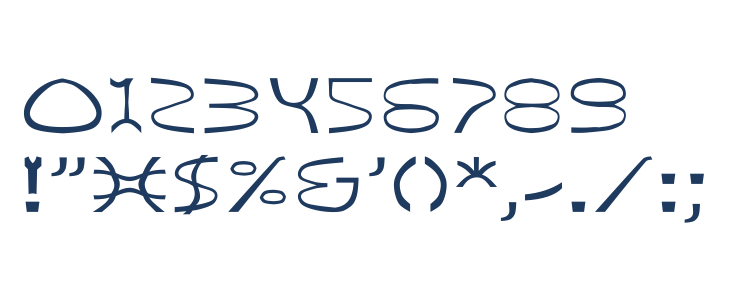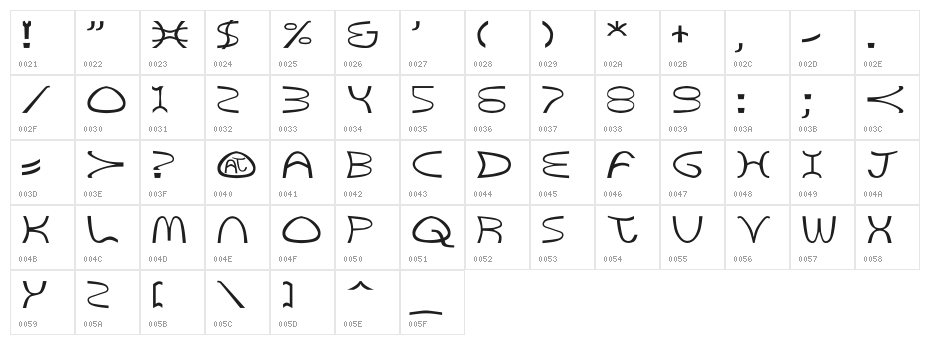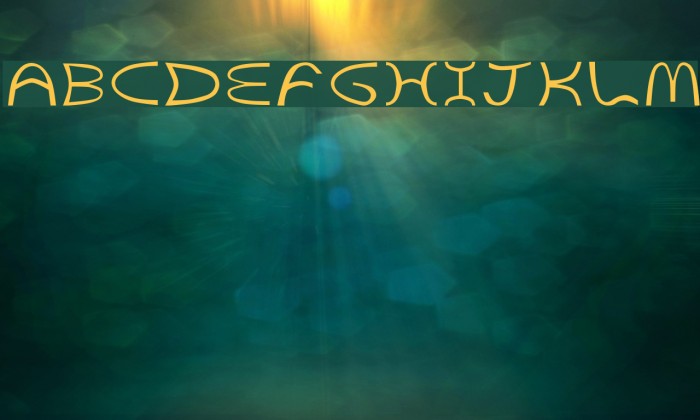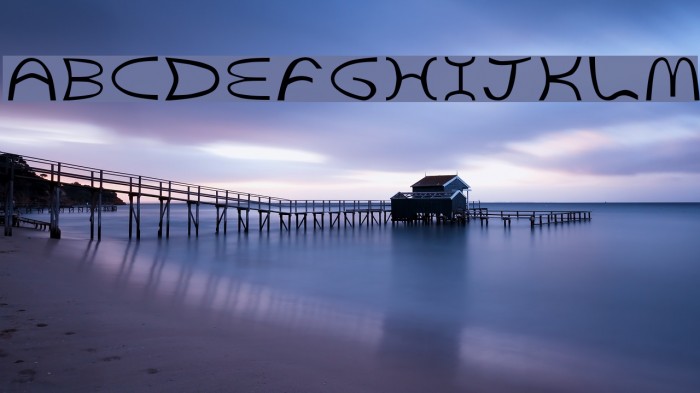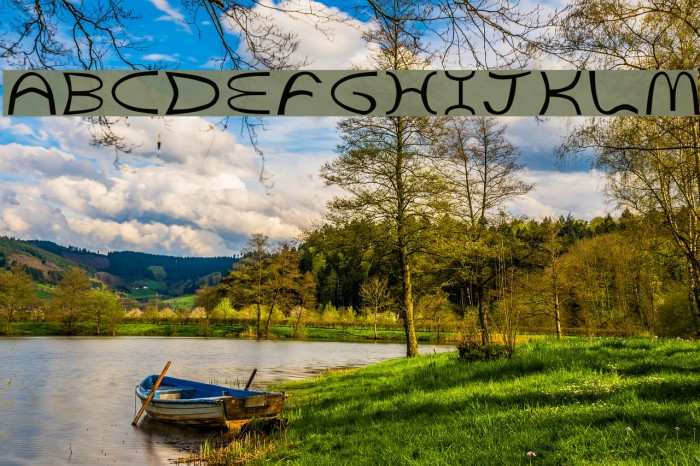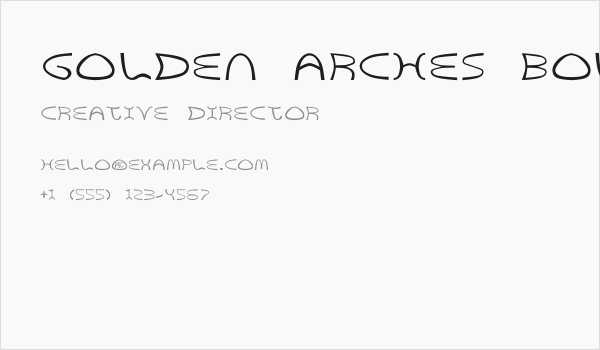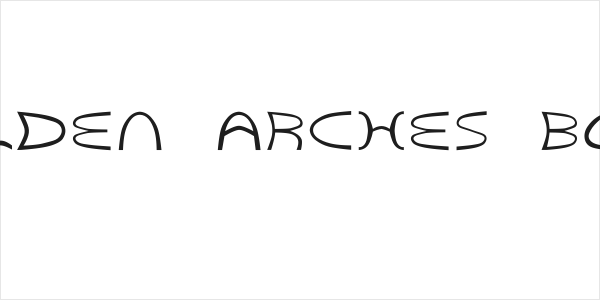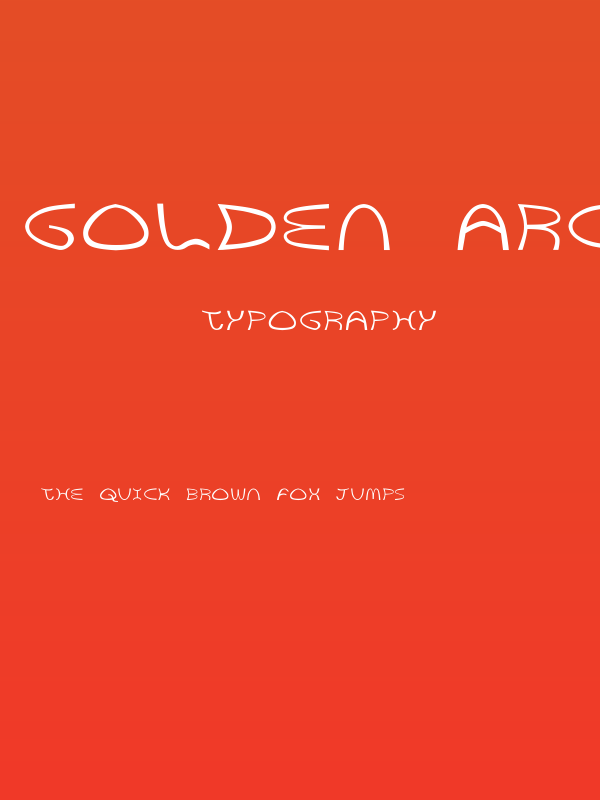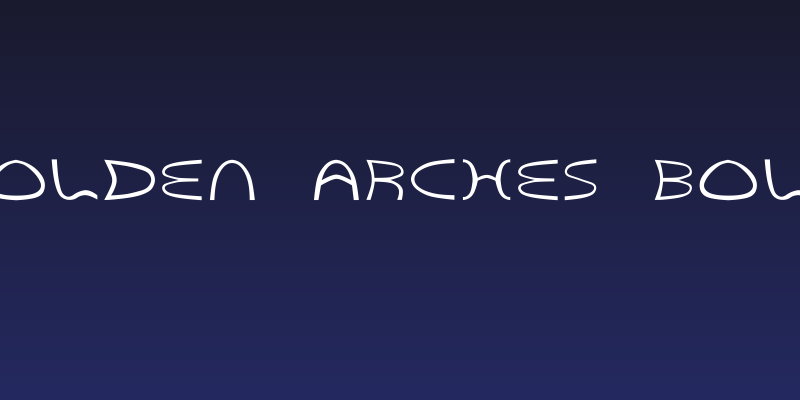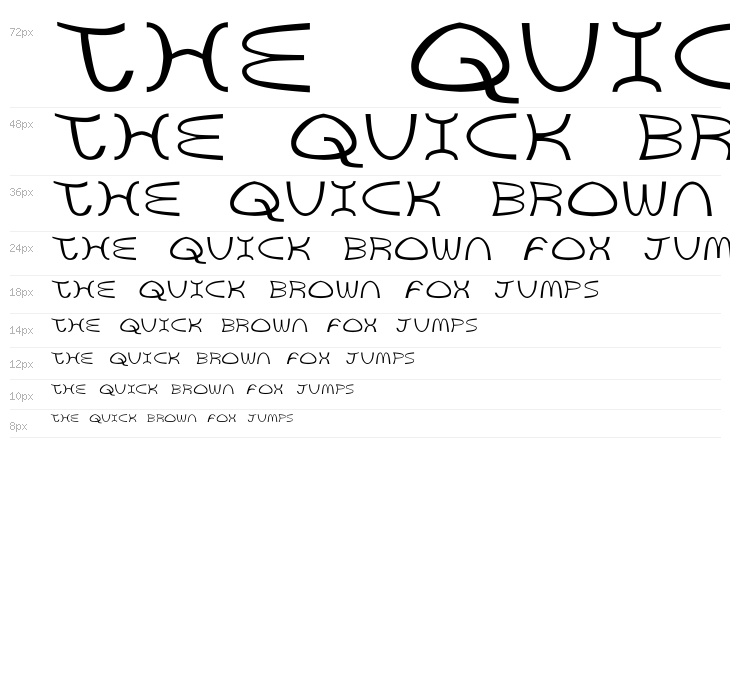
Golden Arches Bold Font
Golden Arches Bold Description
This font features a unique and playful design with a bold and rounded appearance. The characters have a whimsical, almost cartoon-like quality, with exaggerated curves and a sense of movement. The uppercase letters are particularly distinctive, with some characters having elongated strokes and others featuring unexpected angles. The lowercase letters maintain the same playful style, ensuring consistency across the typeface. Numbers and special characters are designed to match the overall aesthetic, making this font suitable for creative and informal projects. The bold weight of the font adds to its eye-catching nature, making it ideal for headlines and attention-grabbing text.
| Proposed Projects | Ideal for children's books, playful branding, event posters, and creative logos. |